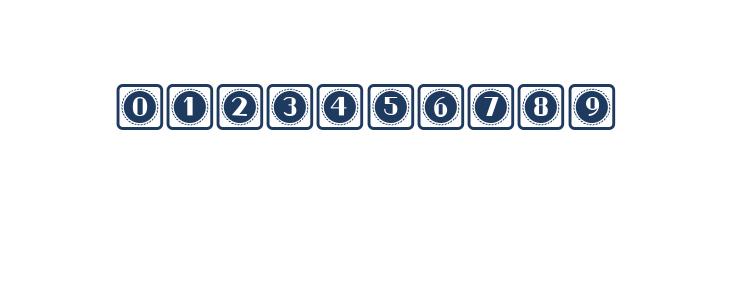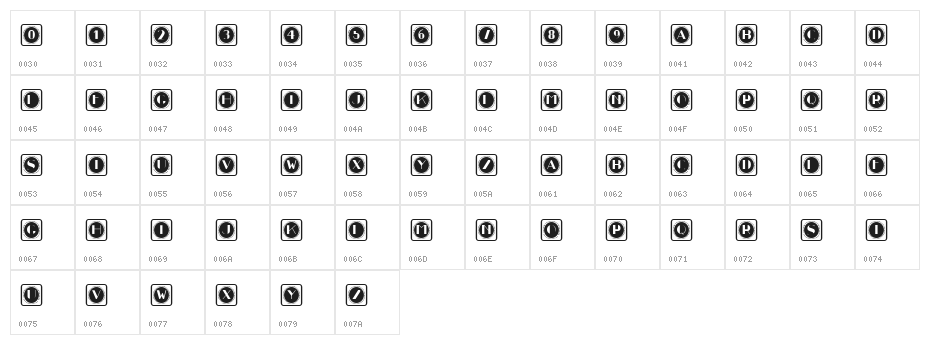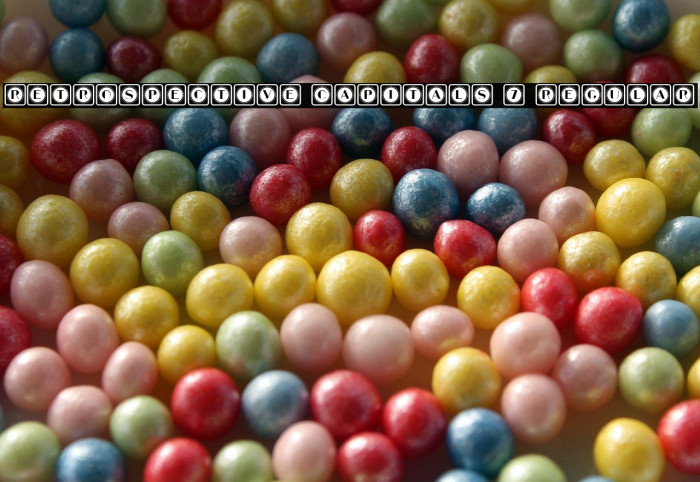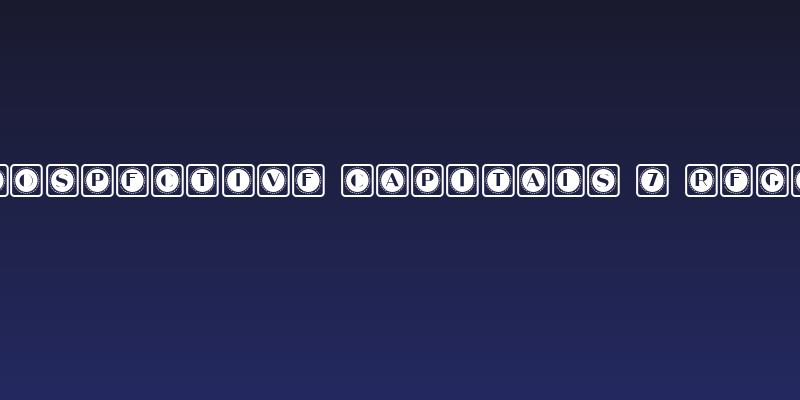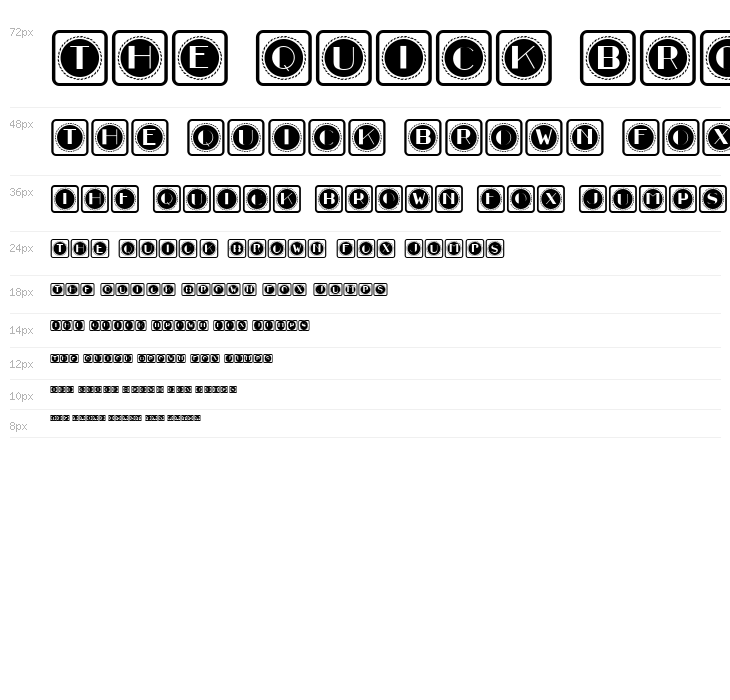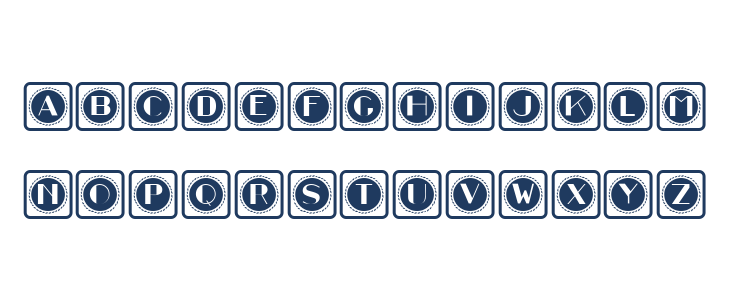
Retrospective Capitals 7 Regular Font
Retrospective Capitals 7 Regular Description
This font features a bold, decorative style with each character enclosed in a square, giving it a unique, retro appearance. The letters are capitalized and centered within the squares, which have a double border design. The inner border is dotted, adding an extra layer of visual interest. The characters themselves are bold and sans-serif, providing a strong contrast against the background. This design is reminiscent of vintage typewriter keys, making it ideal for projects that require a nostalgic or classic touch. The numbers and special characters follow the same design pattern, ensuring consistency across all glyphs.
| Proposed Projects | Ideal for vintage-themed designs, posters, retro branding, and creative projects that require a nostalgic touch. |